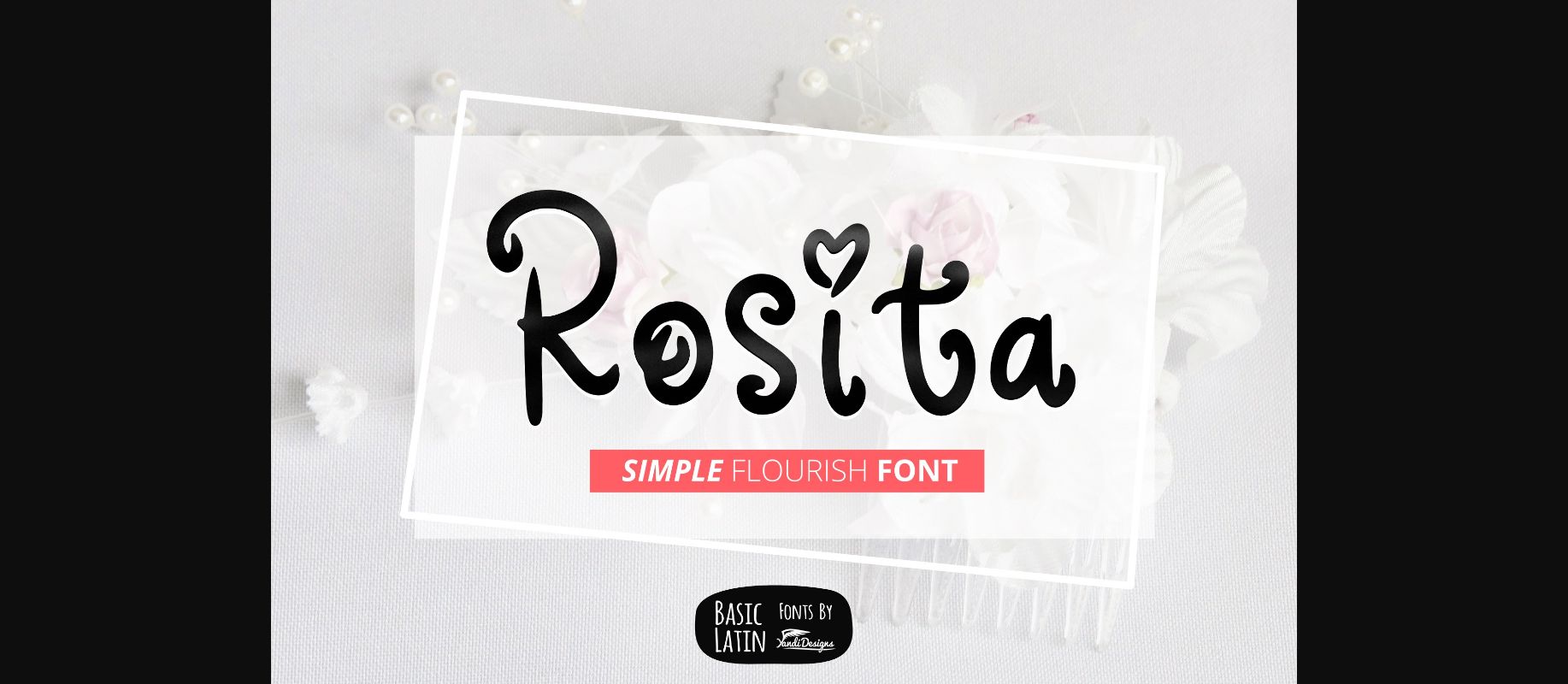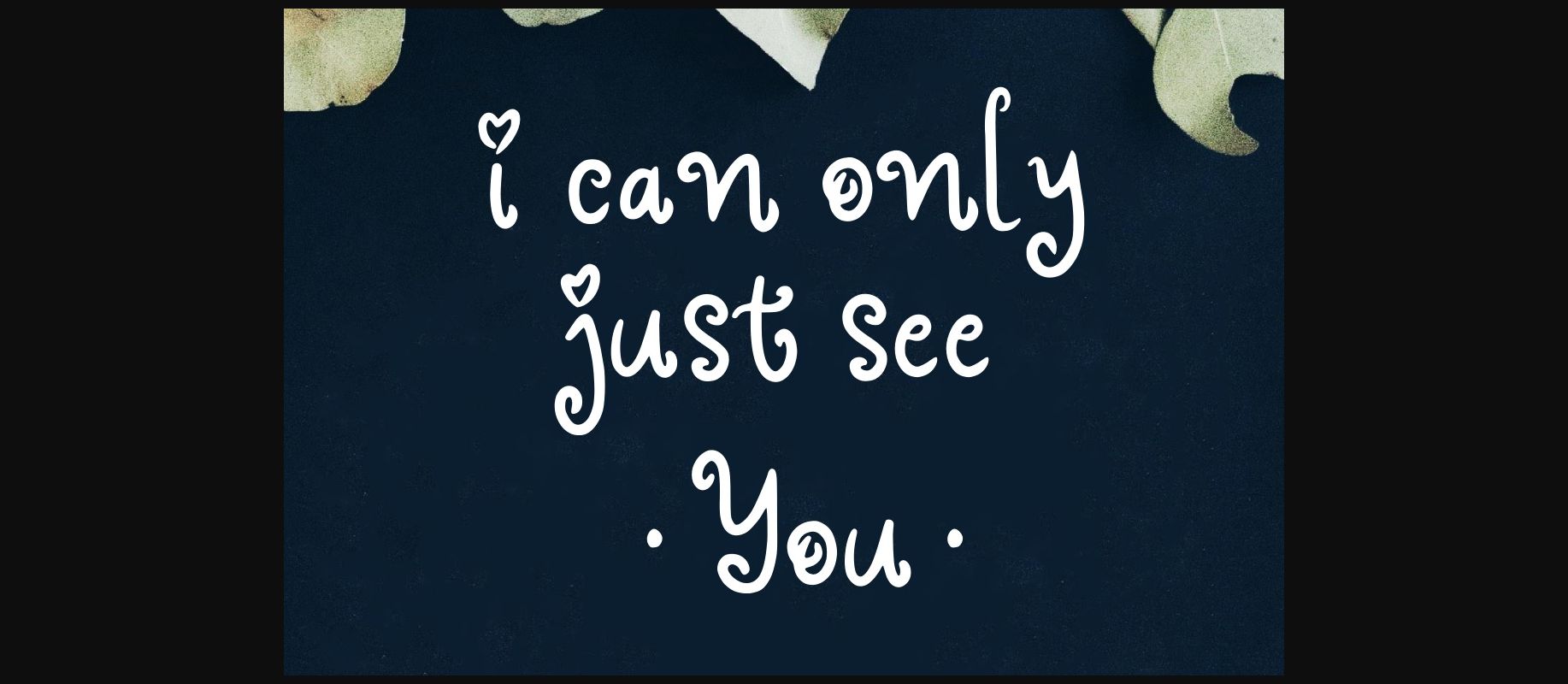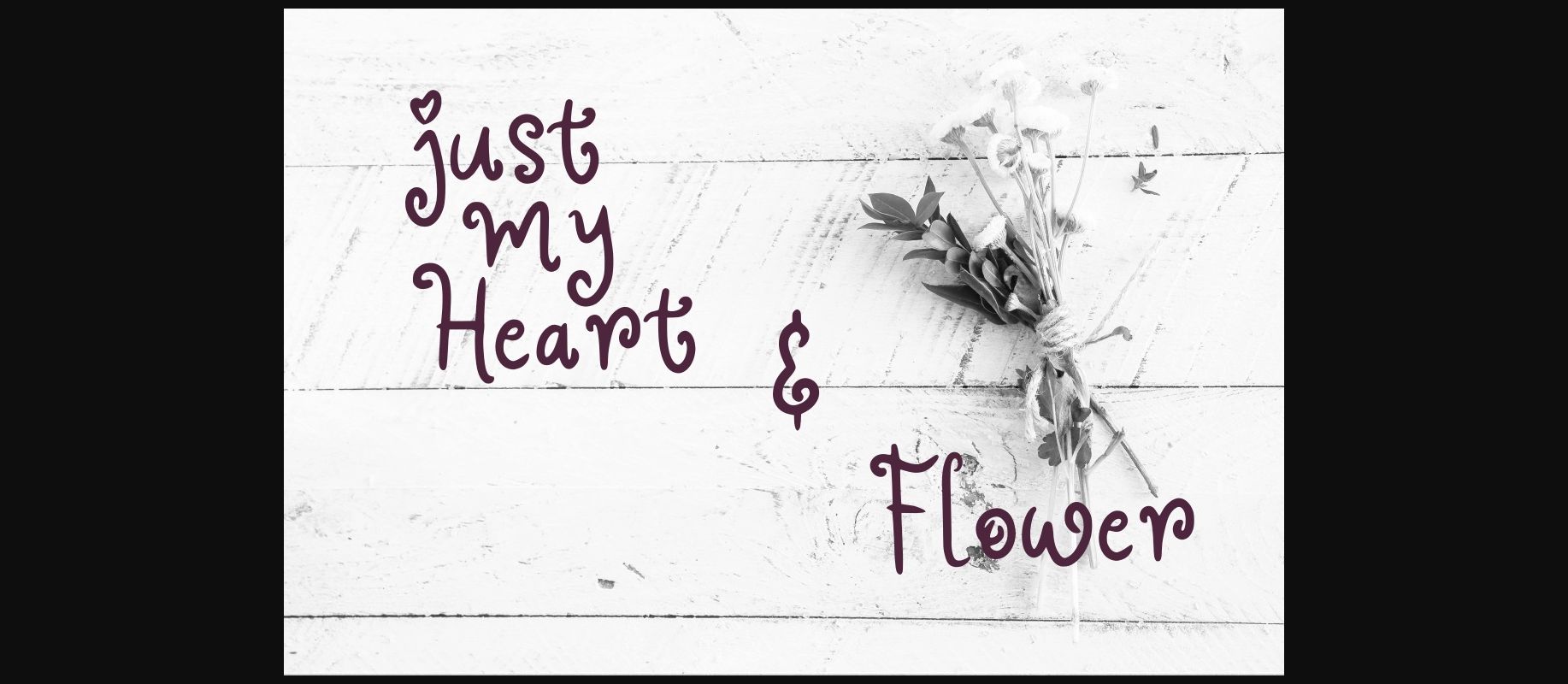
About Rosita Font
Rosita is a simple and flourished font; this is a charming and cute font, one that is best suited to romantic styles and girly designs.